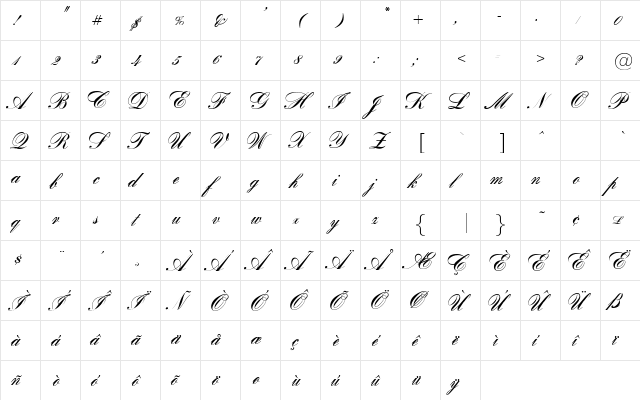
OPTIBank Script
| Style | Script |
OPTIBank flows with the natural rhythm of handwritten lettering, making it ideal for designs that call for warmth and personal expression.
Font Pairing: Combine OPTIBank with a simple geometric sans for maximum contrast — the tension between flowing curves and clean structure is a classic typographic pairing.
Pro Tip: Pair OPTIBank with a clean sans-serif for supporting text. The contrast between fluid script and geometric structure creates an elegant typographic hierarchy.